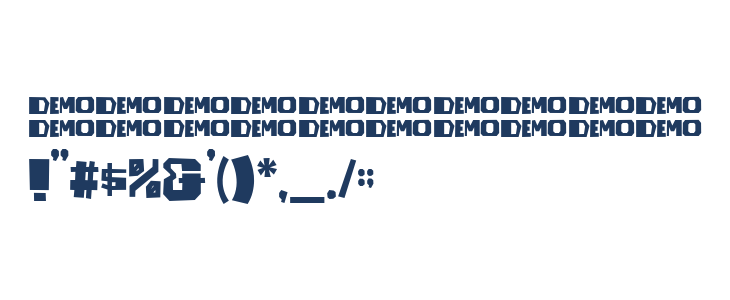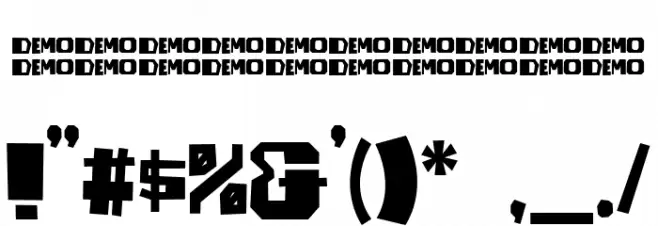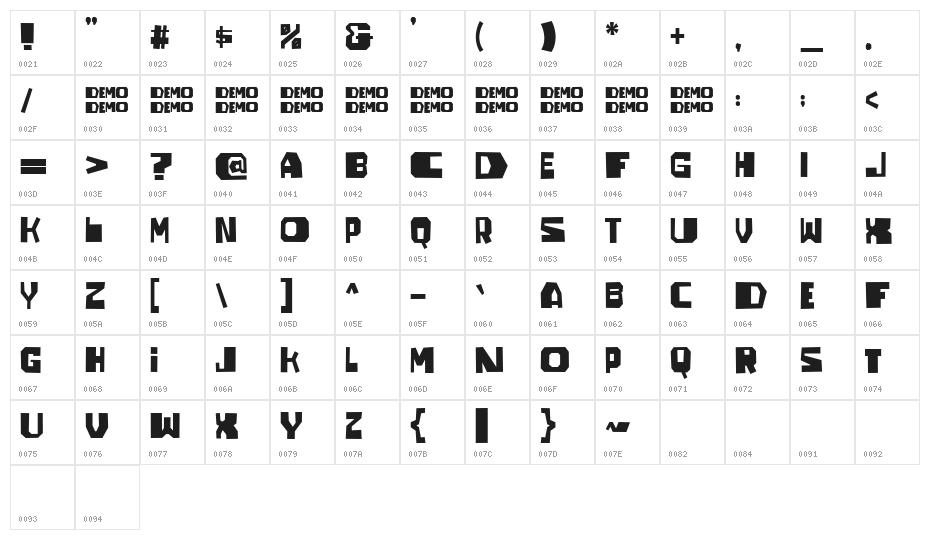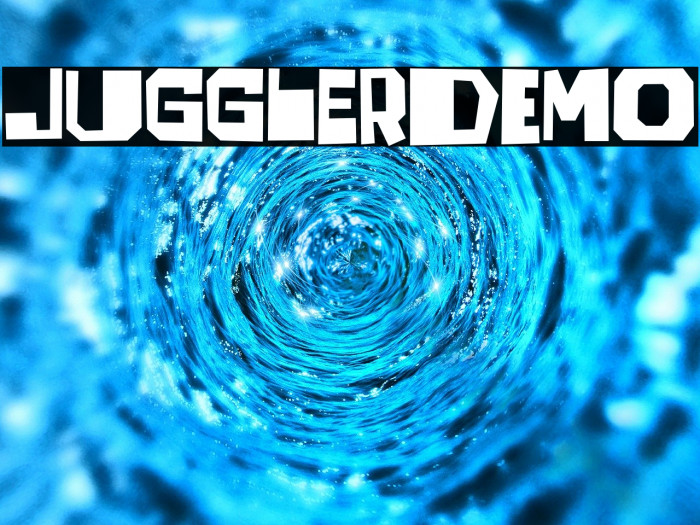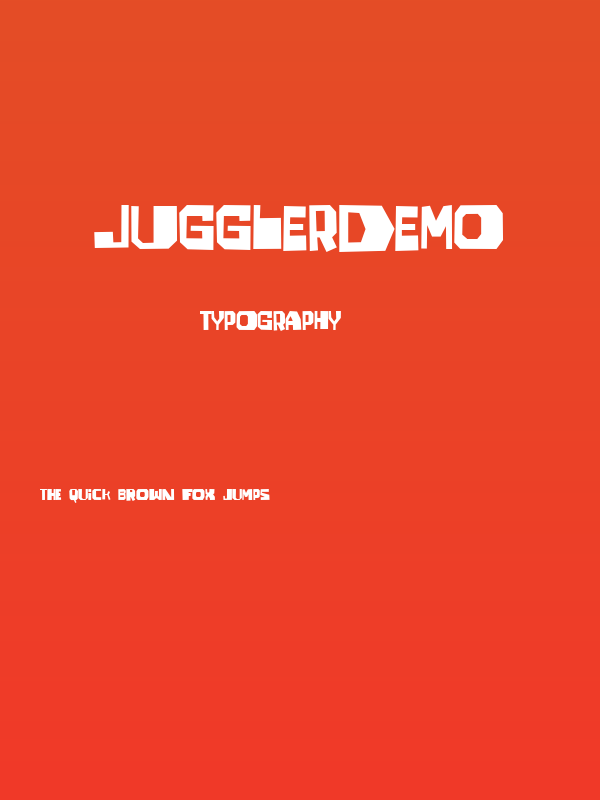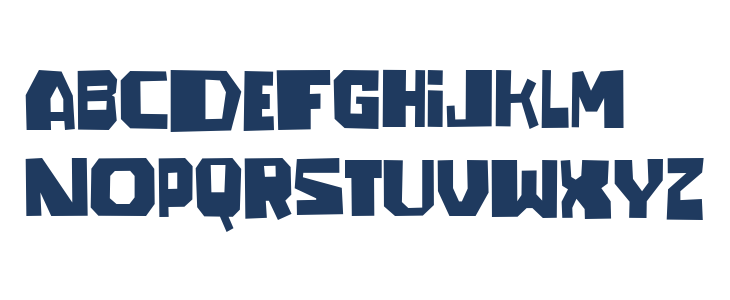
JUGGLERdemo Font
JUGGLERdemo Description
This font features a bold, geometric design with a playful and dynamic aesthetic. The characters are constructed with sharp angles and varying widths, creating a sense of movement and energy. The uppercase letters are particularly striking, with exaggerated forms that command attention. The lowercase letters maintain the same bold style, ensuring consistency across text. The numbers and special characters are equally bold, integrating seamlessly with the alphabet. This font's unique style makes it ideal for projects that require a strong visual impact.
| Proposed Projects | Ideal for posters, logos, headlines, and any design needing a strong visual impact. |